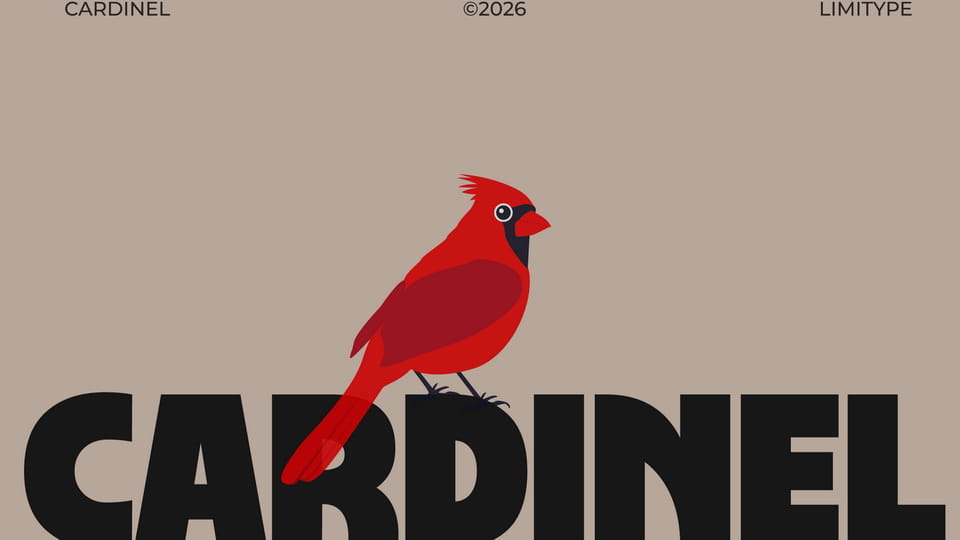
Download Cardinel font, a bold, modern typeface built on a strong geometric structure and a dynamic visual rhythm, giving it a clean and contemporary feel.